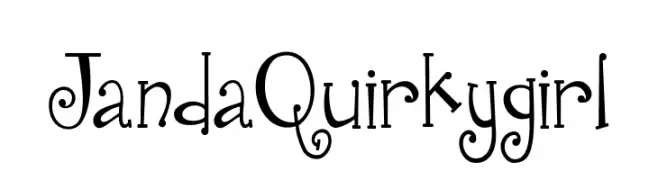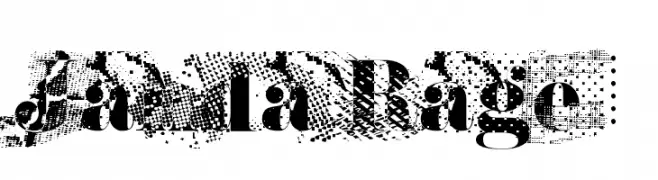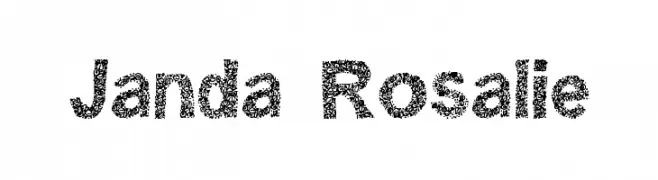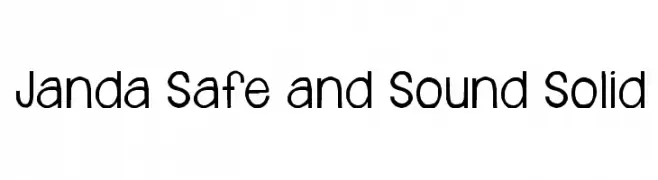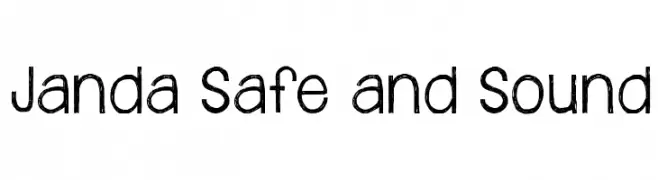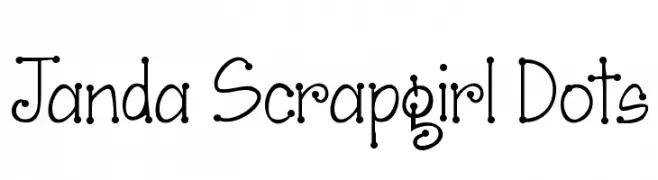
A playful and whimsical font with quirky, irregular letterforms and unique flair.
A whimsical, cursive font with a romantic, handwritten style.
A bold, textured font with a playful, artistic design.
A playful, textured font with a hand-drawn, artistic style.
A playful, hand-drawn font with a textured, chalk-like appearance.
A playful, casual handwritten font with a friendly and approachable style.
A playful, dotted font with a whimsical and informal style.